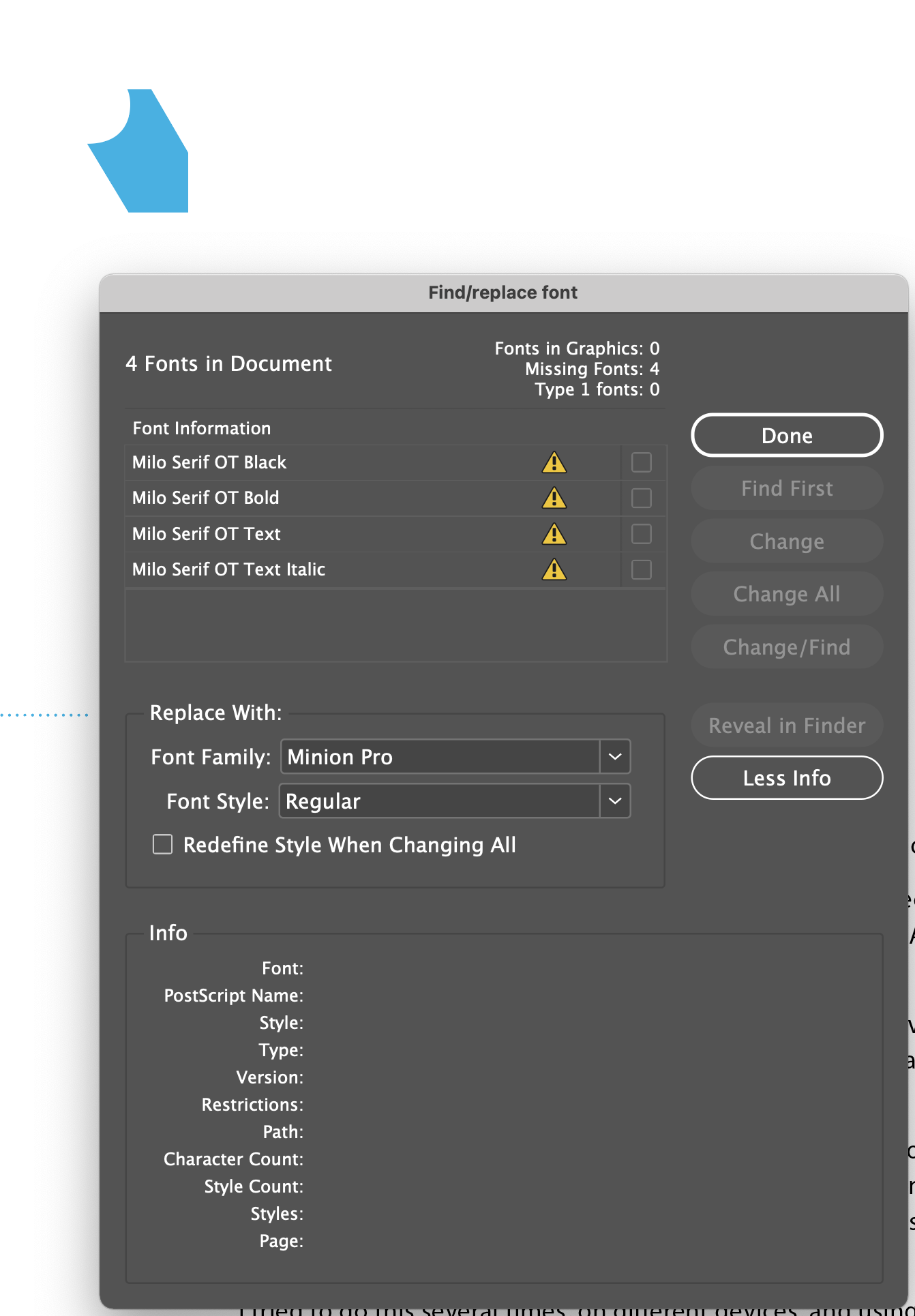
Which Answer Correctly Describes The Postscript Type 1 Font Format
Which Answer Correctly Describes The Postscript Type 1 Font Format - Web type 1 is a font format that came to market around 1984, together with postscript and the apple laserwriter. 3 chameleon is patented and specific to adobe, and was never popular, it is dead. Like opentype, postscript type 1 is a font format developed by adobe, but this format consists of two files. Web which answer correctly describes the postscript type 1 font format? Web 1 answer sorted by: Web type 1 fonts (also known as postscript, ps1, t1, adobe type 1, multiple master, or mm) are a format within the font industry that has been replaced by formats that can support larger glyph sets. Type 1 fonts are still available, but most new fonts are being created in opentype format,. This is the reason why the font format is sometimes called postscript type 1, even though you can also print.
Web which answer correctly describes the postscript type 1 font format? Like opentype, postscript type 1 is a font format developed by adobe, but this format consists of two files. Type 1 fonts are still available, but most new fonts are being created in opentype format,. Web 1 answer sorted by: 3 chameleon is patented and specific to adobe, and was never popular, it is dead. Web type 1 fonts (also known as postscript, ps1, t1, adobe type 1, multiple master, or mm) are a format within the font industry that has been replaced by formats that can support larger glyph sets. This is the reason why the font format is sometimes called postscript type 1, even though you can also print. Web type 1 is a font format that came to market around 1984, together with postscript and the apple laserwriter.
Web type 1 is a font format that came to market around 1984, together with postscript and the apple laserwriter. 3 chameleon is patented and specific to adobe, and was never popular, it is dead. Like opentype, postscript type 1 is a font format developed by adobe, but this format consists of two files. Web 1 answer sorted by: Web type 1 fonts (also known as postscript, ps1, t1, adobe type 1, multiple master, or mm) are a format within the font industry that has been replaced by formats that can support larger glyph sets. Type 1 fonts are still available, but most new fonts are being created in opentype format,. This is the reason why the font format is sometimes called postscript type 1, even though you can also print. Web which answer correctly describes the postscript type 1 font format?
Type 1 fonts are still available, but most new fonts are being created in opentype format,. Web 1 answer sorted by: Web which answer correctly describes the postscript type 1 font format? Web type 1 fonts (also known as postscript, ps1, t1, adobe type 1, multiple master, or mm) are a format within the font industry that has been replaced.
Web type 1 fonts (also known as postscript, ps1, t1, adobe type 1, multiple master, or mm) are a format within the font industry that has been replaced by formats that can support larger glyph sets. Web which answer correctly describes the postscript type 1 font format? This is the reason why the font format is sometimes called postscript type.
Web 1 answer sorted by: Web which answer correctly describes the postscript type 1 font format? Web type 1 fonts (also known as postscript, ps1, t1, adobe type 1, multiple master, or mm) are a format within the font industry that has been replaced by formats that can support larger glyph sets. Type 1 fonts are still available, but most.
3 chameleon is patented and specific to adobe, and was never popular, it is dead. Like opentype, postscript type 1 is a font format developed by adobe, but this format consists of two files. Web type 1 fonts (also known as postscript, ps1, t1, adobe type 1, multiple master, or mm) are a format within the font industry that has.
3 chameleon is patented and specific to adobe, and was never popular, it is dead. This is the reason why the font format is sometimes called postscript type 1, even though you can also print. Web type 1 is a font format that came to market around 1984, together with postscript and the apple laserwriter. Web 1 answer sorted by:.
Web 1 answer sorted by: Web which answer correctly describes the postscript type 1 font format? This is the reason why the font format is sometimes called postscript type 1, even though you can also print. Type 1 fonts are still available, but most new fonts are being created in opentype format,. 3 chameleon is patented and specific to adobe,.
This is the reason why the font format is sometimes called postscript type 1, even though you can also print. Web 1 answer sorted by: 3 chameleon is patented and specific to adobe, and was never popular, it is dead. Like opentype, postscript type 1 is a font format developed by adobe, but this format consists of two files. Web.
Web type 1 is a font format that came to market around 1984, together with postscript and the apple laserwriter. Type 1 fonts are still available, but most new fonts are being created in opentype format,. This is the reason why the font format is sometimes called postscript type 1, even though you can also print. Like opentype, postscript type.
Web 1 answer sorted by: Web type 1 is a font format that came to market around 1984, together with postscript and the apple laserwriter. Web type 1 fonts (also known as postscript, ps1, t1, adobe type 1, multiple master, or mm) are a format within the font industry that has been replaced by formats that can support larger glyph.
Like opentype, postscript type 1 is a font format developed by adobe, but this format consists of two files. 3 chameleon is patented and specific to adobe, and was never popular, it is dead.